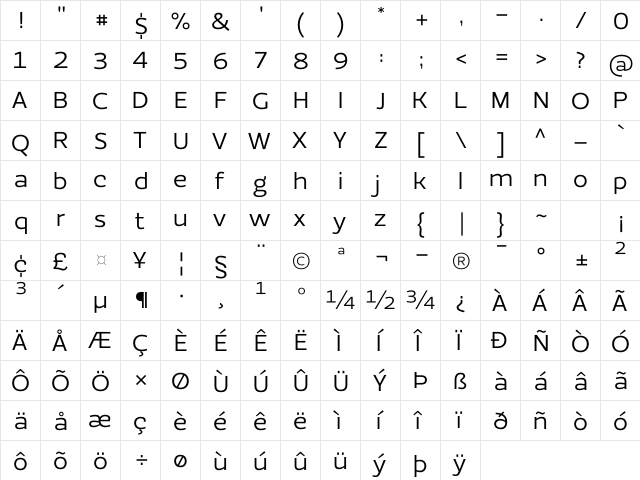
EzzoBook Regular Font Preview
EzzoBook Regular
EzzoBook Regular Font Details
| Foundry | Dino dos Santos _DSType |
Design Context for EzzoBook Typeface
EzzoBook offers clean, dependable letterforms without strong stylistic allegiance, making it a practical choice for designers who need flexibility.
Pro Tip: Pair EzzoBook with a font of contrasting weight or personality to build a more expressive typographic hierarchy.